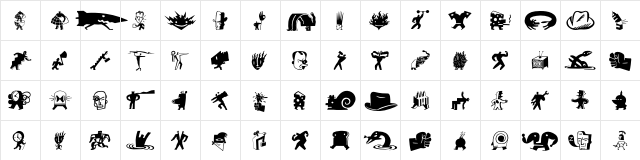
BigCheeseDark Regular
Design Context for BigCheeseDark Typeface
BigCheeseDark is a composed and adaptable typeface that performs quietly and consistently across a wide range of design contexts.